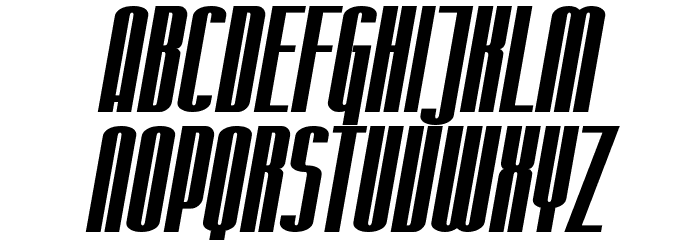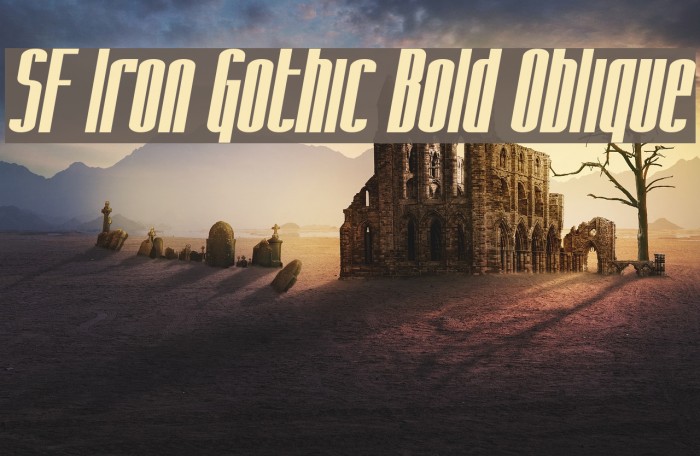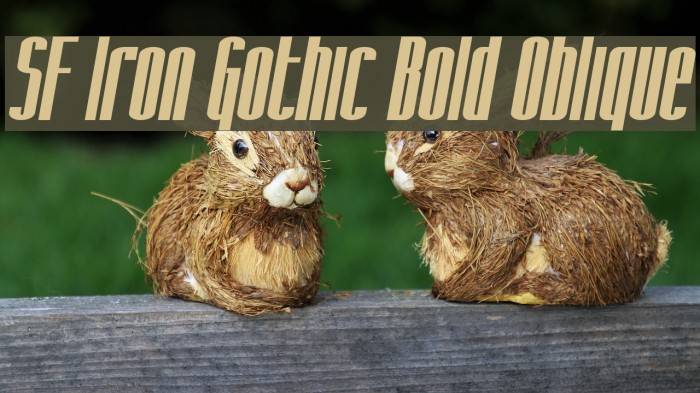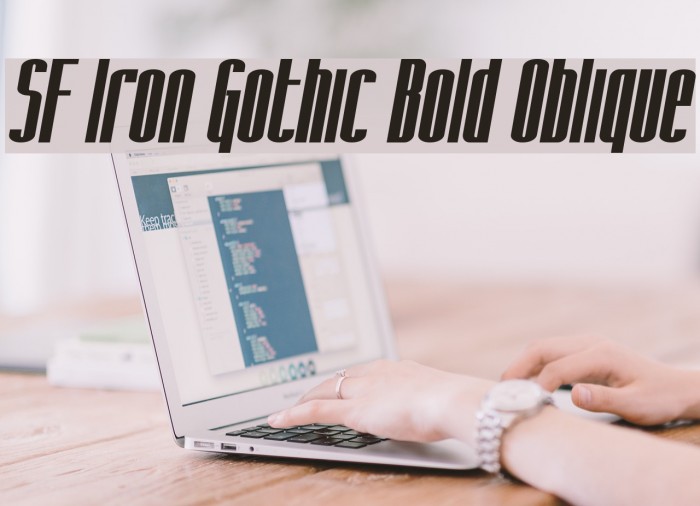
SF Iron Gothic Bold Oblique Font
This font features a bold and oblique style with a strong, impactful presence. The characters are tall and narrow, giving a condensed appearance that emphasizes verticality. The strokes are thick and consistent, providing a robust and solid look. The italicized slant adds a dynamic and energetic feel, making it suitable for attention-grabbing headlines or titles. The design is modern and sleek, with a slight industrial edge, perfect for projects that require a bold statement.
A bold, oblique, and condensed font with a modern, industrial style.
- Proposed Projects: Ideal for use in posters, branding, sports team logos, and any design requiring a strong, impactful typeface.
- Italic: Yes
- Width: Condensed
- Character Spacing: Tight